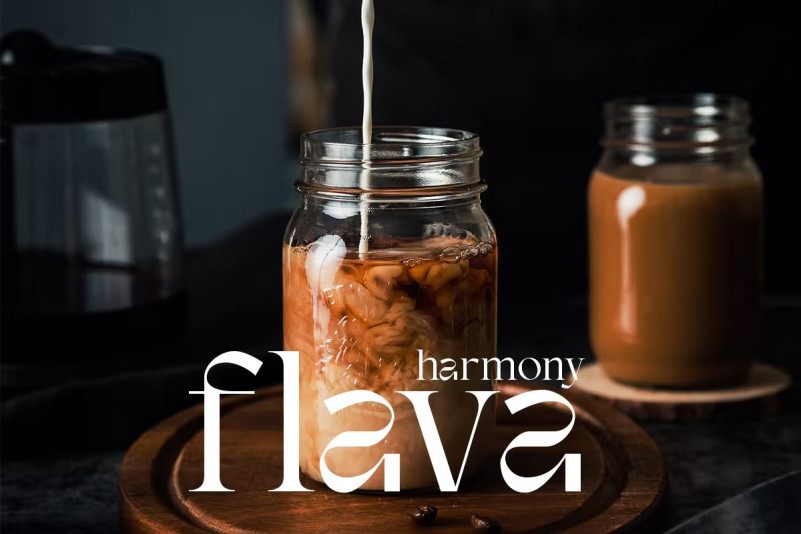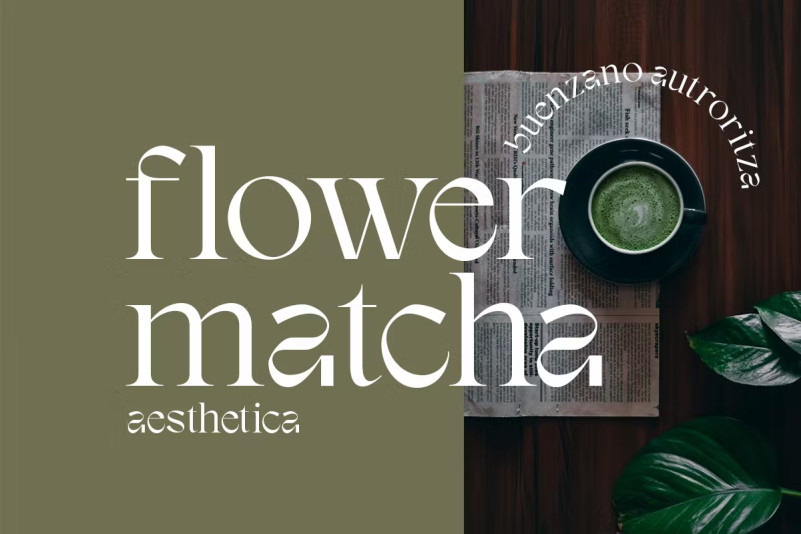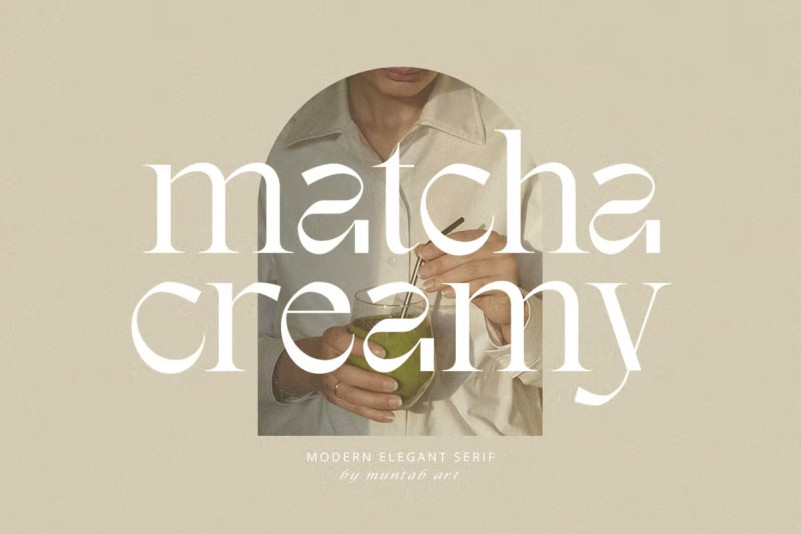
Matcha Creamy Font
Matcha Creamy Serif font include uppercase letters, lowercase letters, numbers and a wide range of punctuations. Serif font in modern classic style. Created for posters, web design, branding, illustrations, badges and other works.